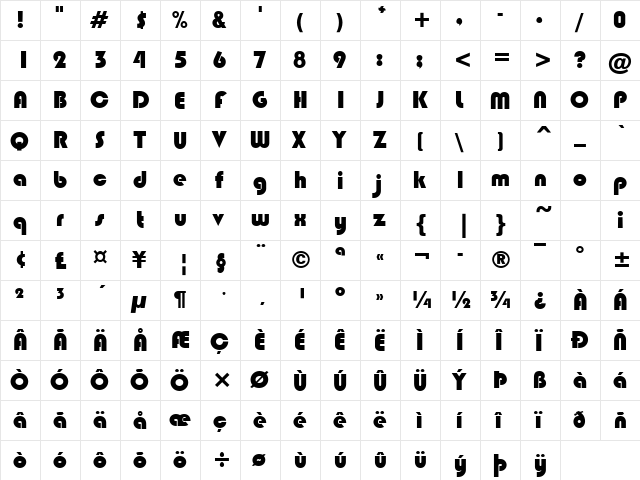
Hippo Bold
Design Context for Hippo Typeface
Hippo takes a measured approach to typography — its balanced proportions and neutral character make it a reliable workhorse for both digital and print work. The heavy weight commands attention and anchors typographic hierarchies.